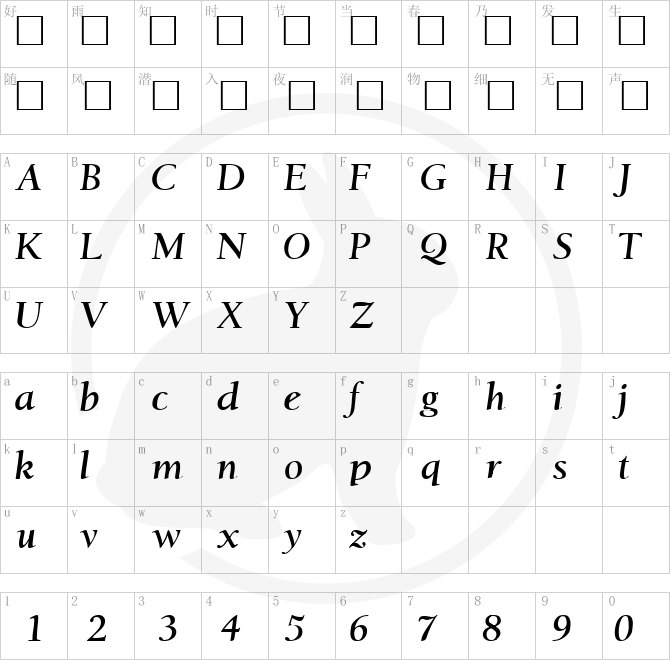
- Font Name:JacksonvilleOldStyle
JacksonvilleOldStyle.ttf is a very beautiful artistic font, JacksonvilleOldStyle.ttf is widely used in the design and printing of various books and pictures,JacksonvilleOldStyle.ttf has a strong visual impact,JacksonvilleOldStyle.ttf is a commonly used font in newspapers, magazines and books, and is used in posters, e-commerce Poster design, store design, logo design, font design and other fields.JacksonvilleOldStyle.